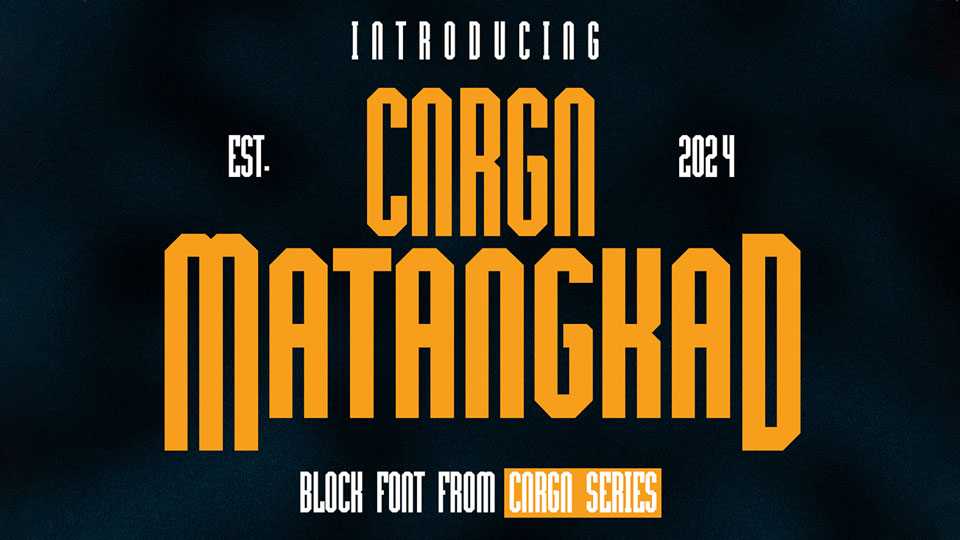
Download CNRGN Matangkad font, a tall, blocky display typeface with an athletic edge, designed to capture the energy and intensity of the sports world.